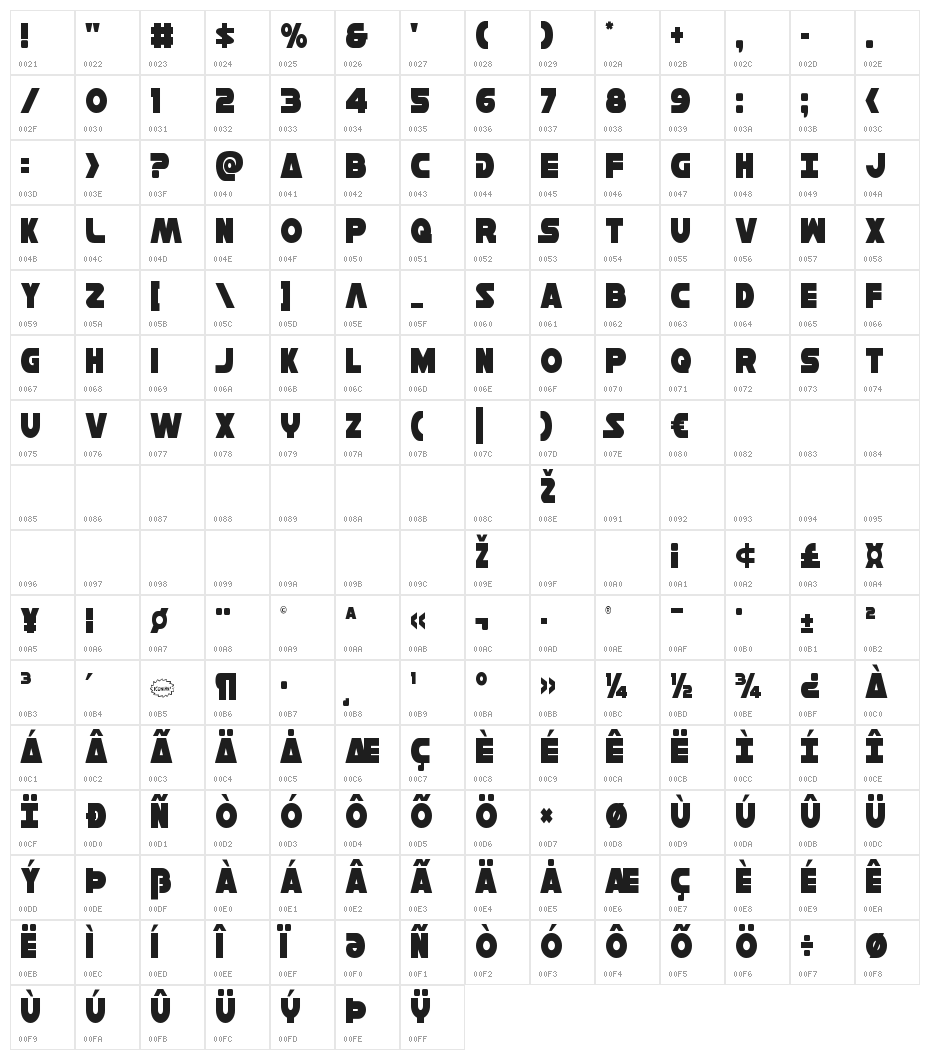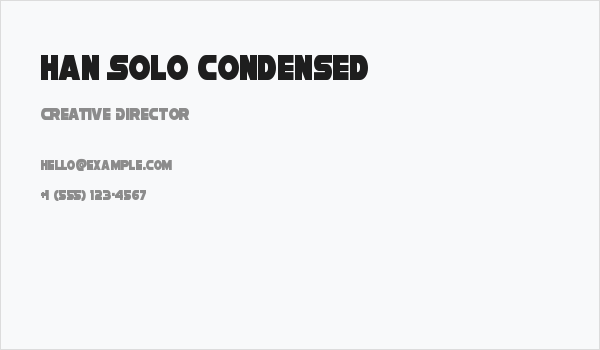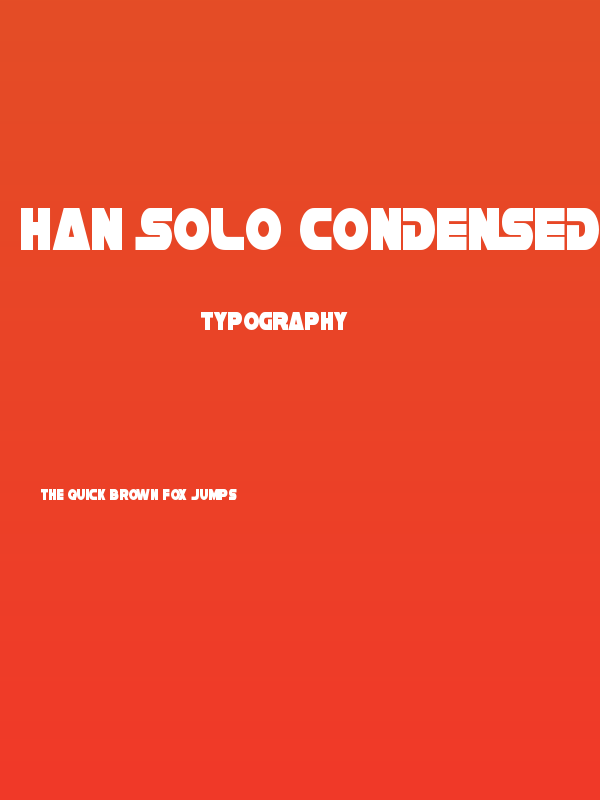
Han Solo Condensed Font
Han Solo Condensed Description
This font features a bold and striking design with a distinctly futuristic and geometric appearance. The characters are crafted with a condensed width, giving them a compact and efficient look. The boldness of the strokes is consistent throughout, providing a strong visual impact. The angular and block-like shapes of the letters contribute to a modern and industrial aesthetic, making it suitable for projects that require a commanding presence. The uniformity in stroke thickness and the absence of serifs enhance its clean and streamlined appearance. This font is ideal for creating attention-grabbing headlines, posters, and branding materials that demand a bold statement.
| Proposed Projects | Ideal for sci-fi themed posters, modern branding, impactful headlines, and digital interfaces. |